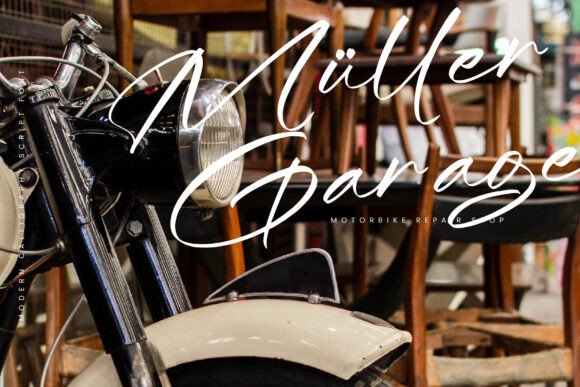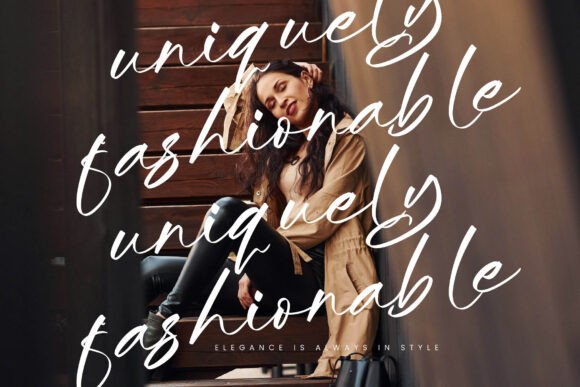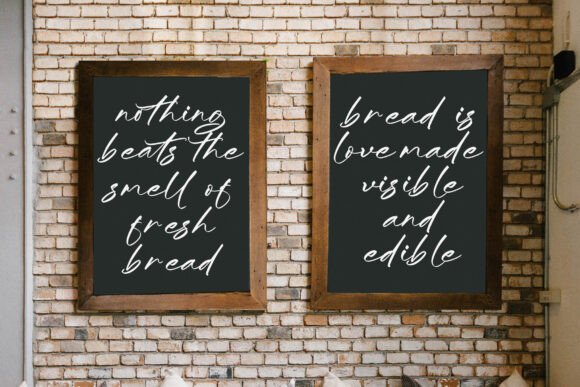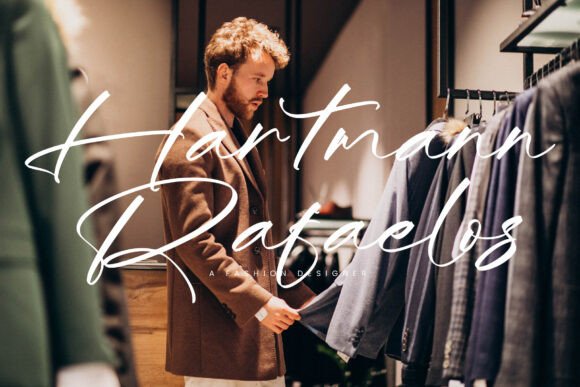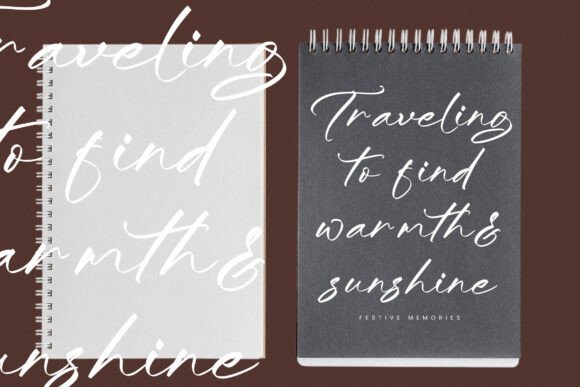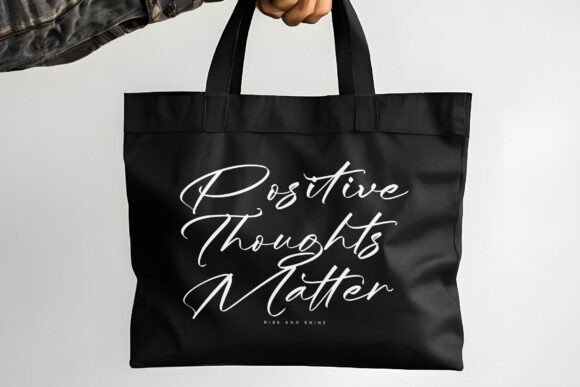
Introduction to Ridgetone Garden Font
Ridgetone Garden – Modern Calligraphy Script Font, from Integritype Studio, perfect for any project like: logos, branding projects, homewares designs, product packaging, mugs, quotes, posters, shopping bags, t-shirts, covers books, business cards, invitation cards, greeting cards, labels, photography, watermarks, special events and all your other luxury projects that require a premium taste.
Key Features of Ridgetone Garden Font
Why Choose Ridgetone Garden Font?
Ridgetone Garden Font offers exceptional quality and versatility, making it a valuable addition to your design toolkit. Whether you’re creating for personal projects or commercial use, Ridgetone Garden Font delivers professional results.